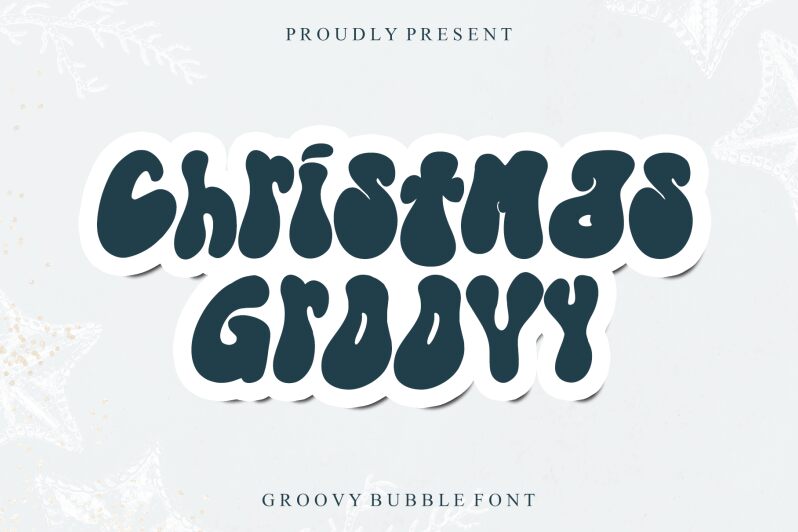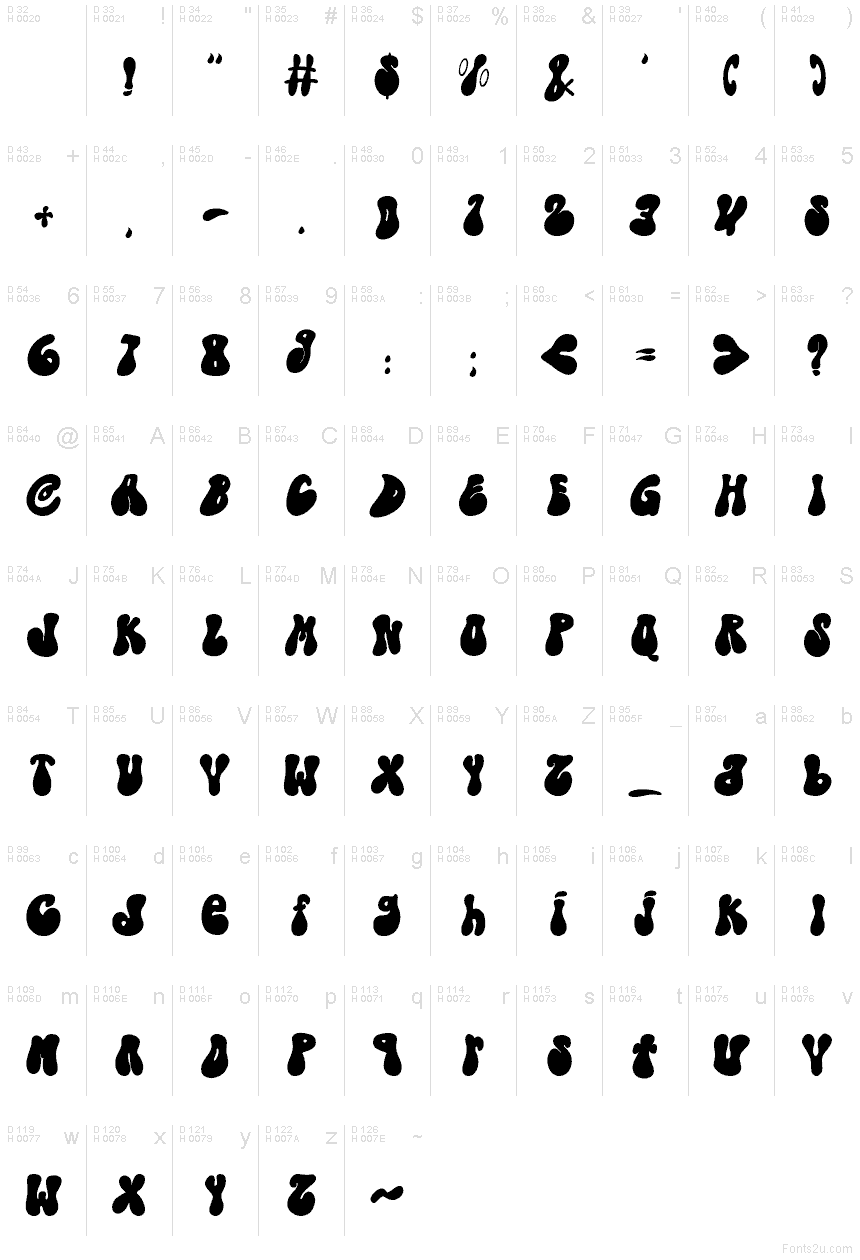
Christmas Groovy font by Letterafa Studio is a free groovy display typeface that turns any layout into a retro holiday party. Its blobby, melted shapes feel like peppermint fudge letters, with thick inky silhouettes that wiggle and sway across the line. The rhythm is bold and bouncy, so words look like they’re dancing on a poster or card, even before you add color or graphics.
Using Christmas Groovy, your headlines instantly feel festive and a little mischievous—great for Christmas cards, party invitations, seasonal packaging, posters, social media graphics, and kids’ event signage. This free font thrives at large sizes where its chubby curves and quirky contours can breathe. Pair it with a clean, simple sans serif for body text to keep your layouts readable while the title steals the spotlight.